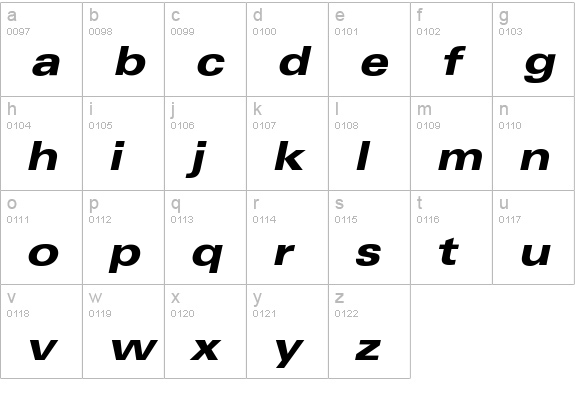
Nova Black Expanded SSi Extra Bold Expanded Italic Font Details
Nova Black Expanded SSi Extra Bold Expanded Italic is a maximum-weight, dramatic, extended-width, italic variant in the Nova typeface family \xE2\x80\x94 well suited to maximum-impact headlines, posters, and packaging.
The Nova Black Expanded SSi Extra Bold Expanded Italic font is a bold and eye-catching typeface that exudes confidence and modernity. Its sleek design and exaggerated letterforms make a strong statement and are perfect for headlines, titles, and branding projects. With its expanded italic style, this font commands attention and adds a touch of sophistication to any design. The best part? This striking font is available for free download at FontsMarket.com, making it easily accessible for designers looking to make a bold impact without breaking the bank. Whether you're working on a poster, website, or logo, the Nova Black Expanded SSi Extra Bold Expanded Italic font is sure to make your text stand out and leave a lasting impression. Download it today and elevate your design projects with this versatile and stylish typeface.